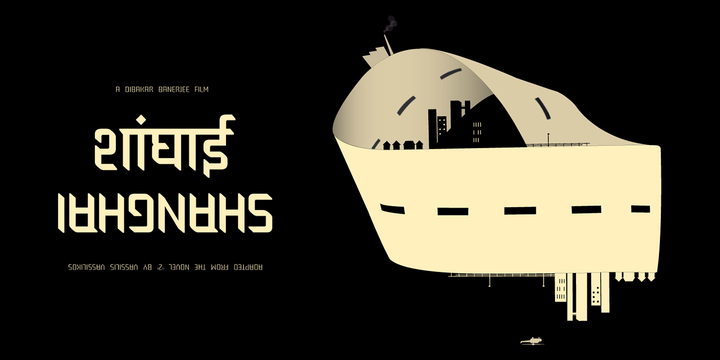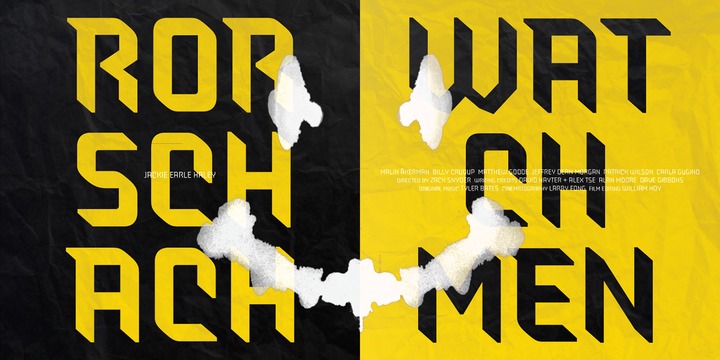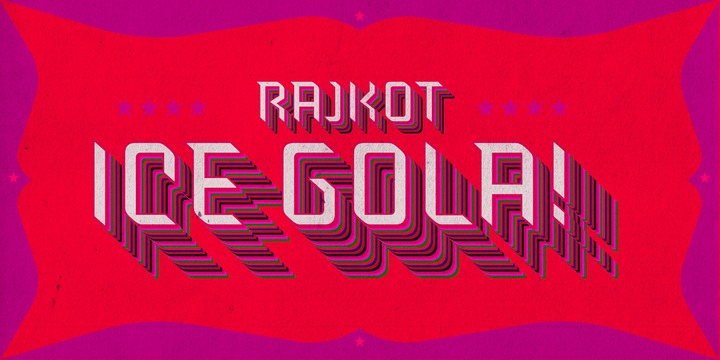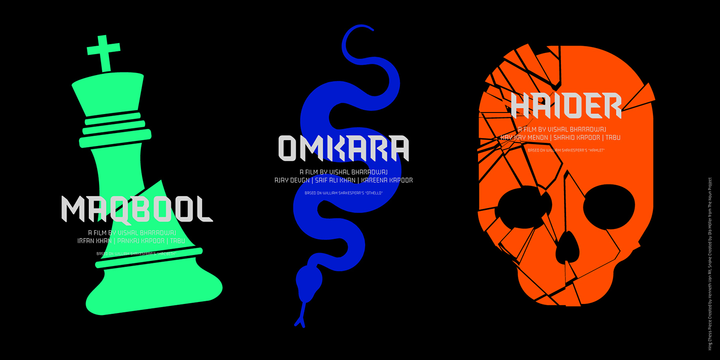
Brahmos Font Family
Brahmos Font Family – 5 Fonts
Brahmos is a display typeface family in 5 upright styles. Modular methods of letter construction are common, but Brahmos’ referencing of the broad-nib pen is a refreshing twist. The typeface’s most striking feature is the appearance of its characters, which seem “written” by a pen held at a typically Devanagari (Oppposite to Latin) angle. Letterforms have also been simplified where possible; curves are eschewed in favor of straight lines and (usually) right angles. Diagonals are still present.
Brahmos Light
Brahmos
Brahmos Medium
Brahmos Semibold
Brahmos Bold